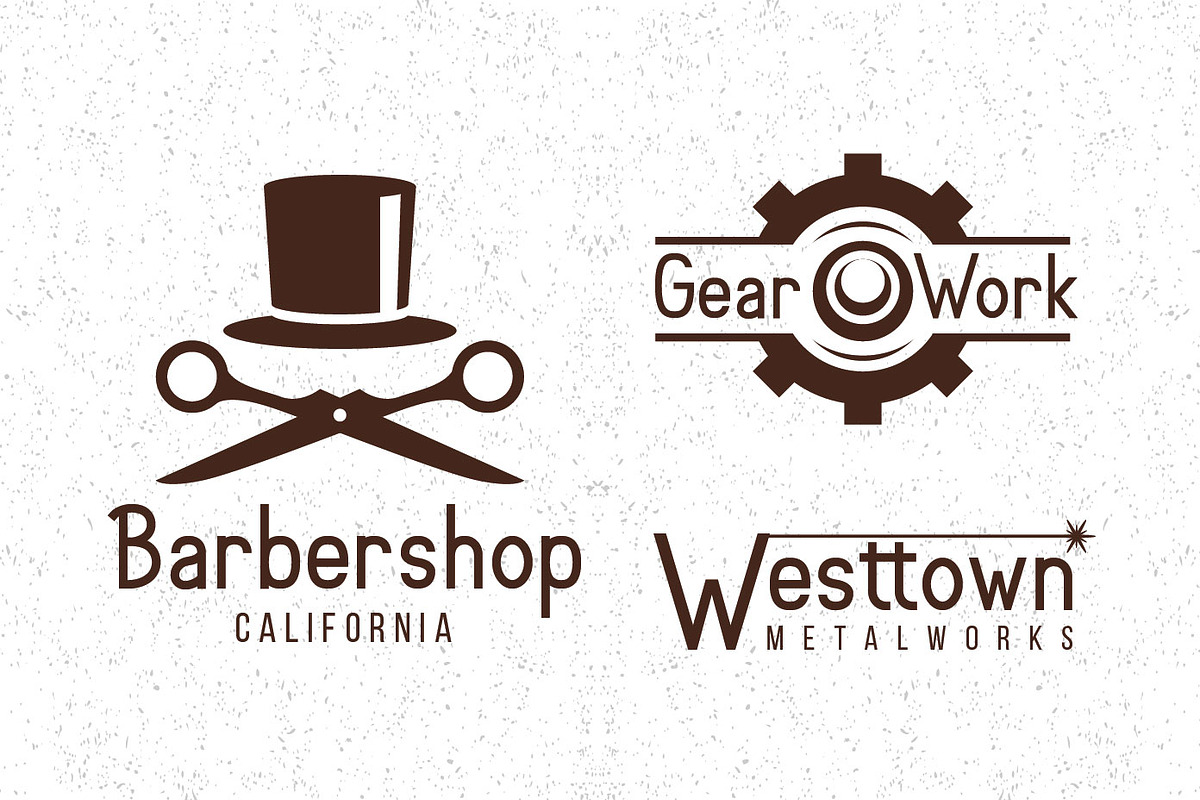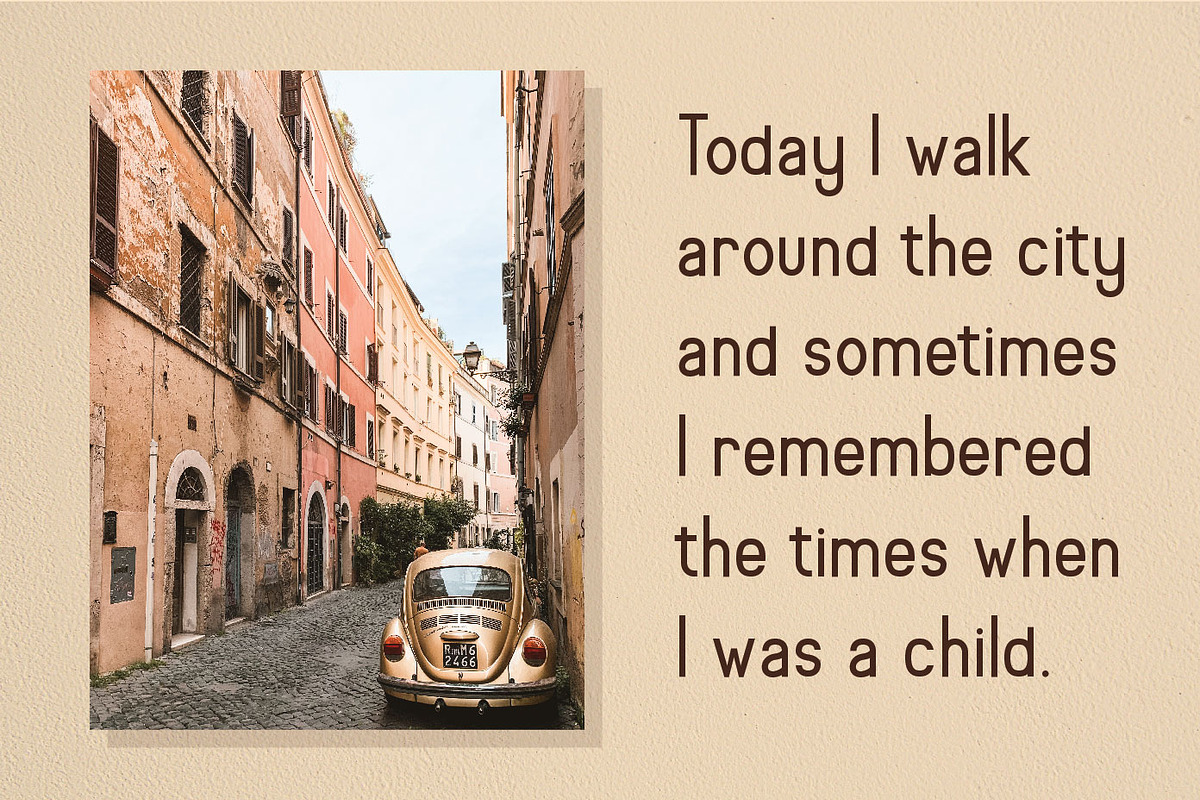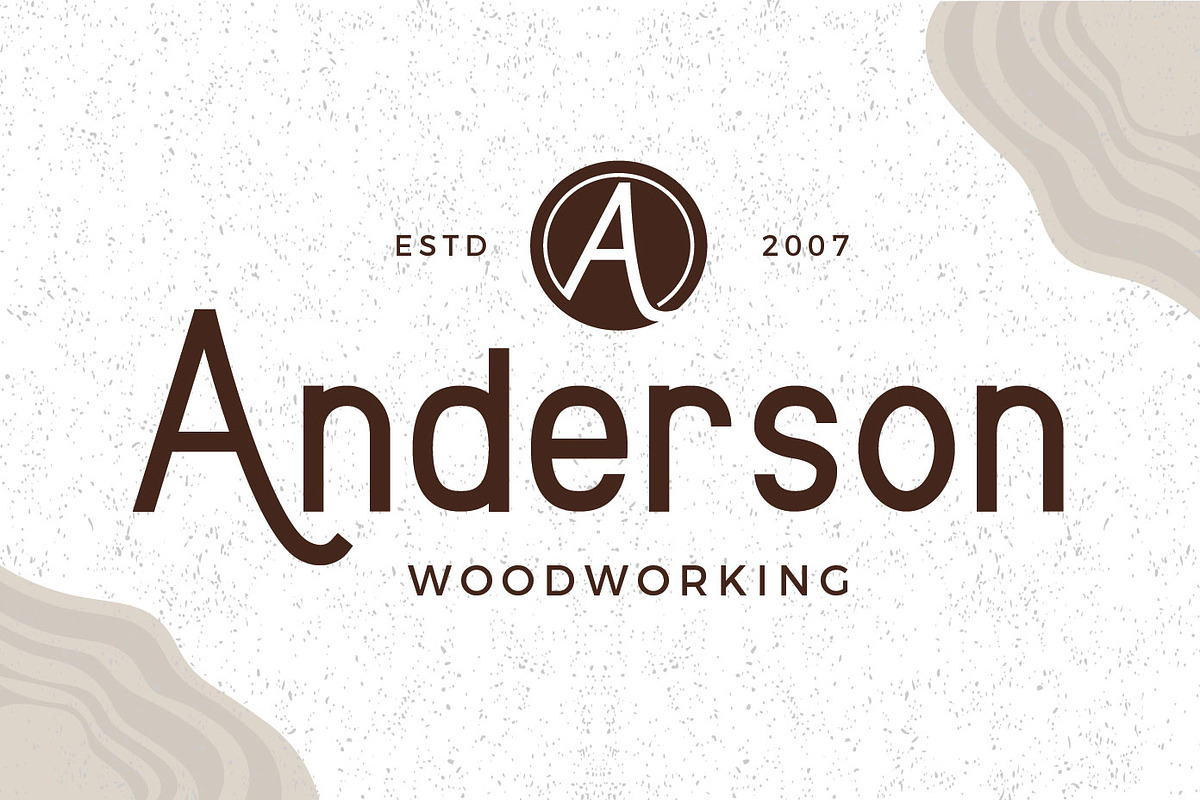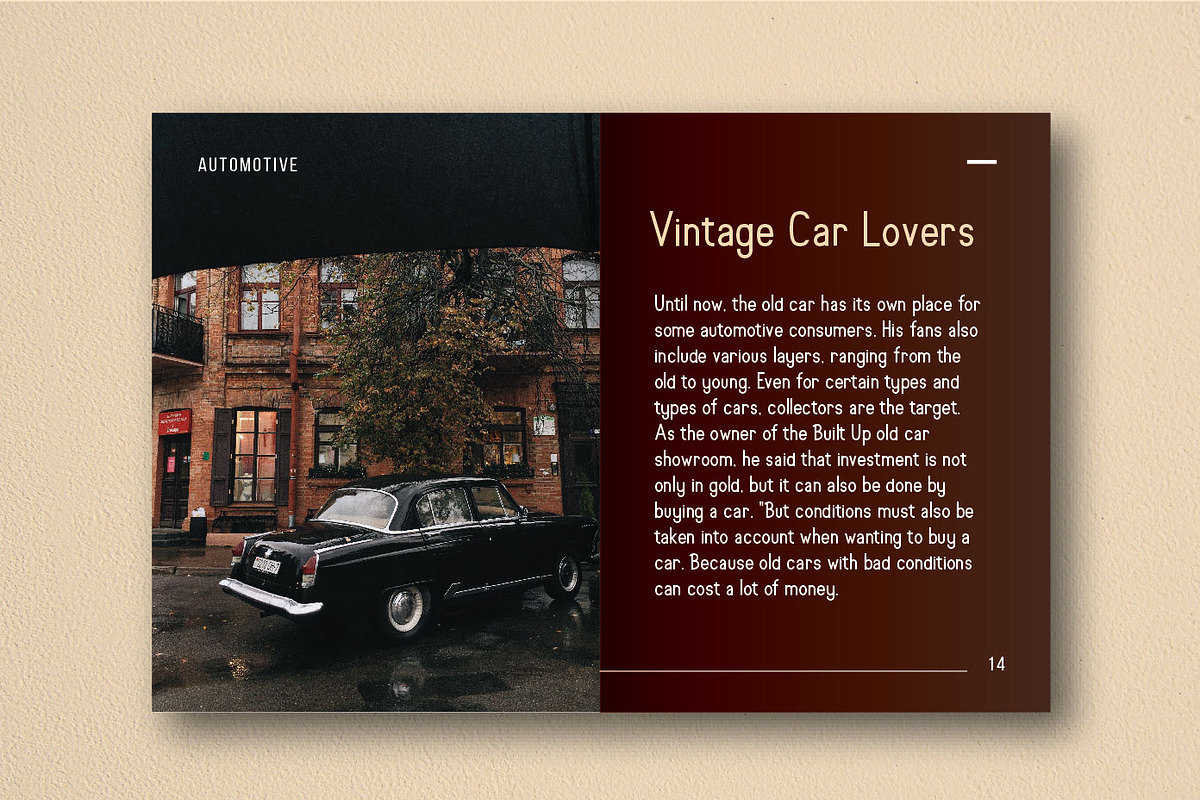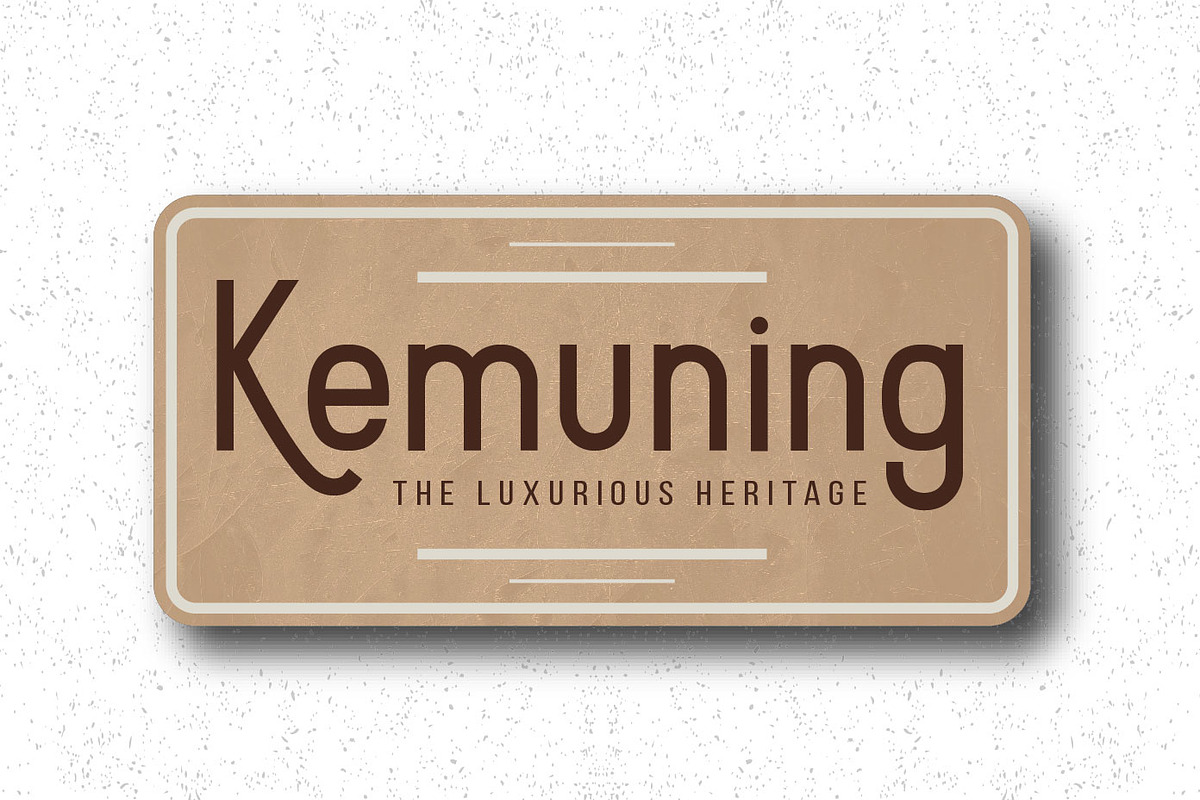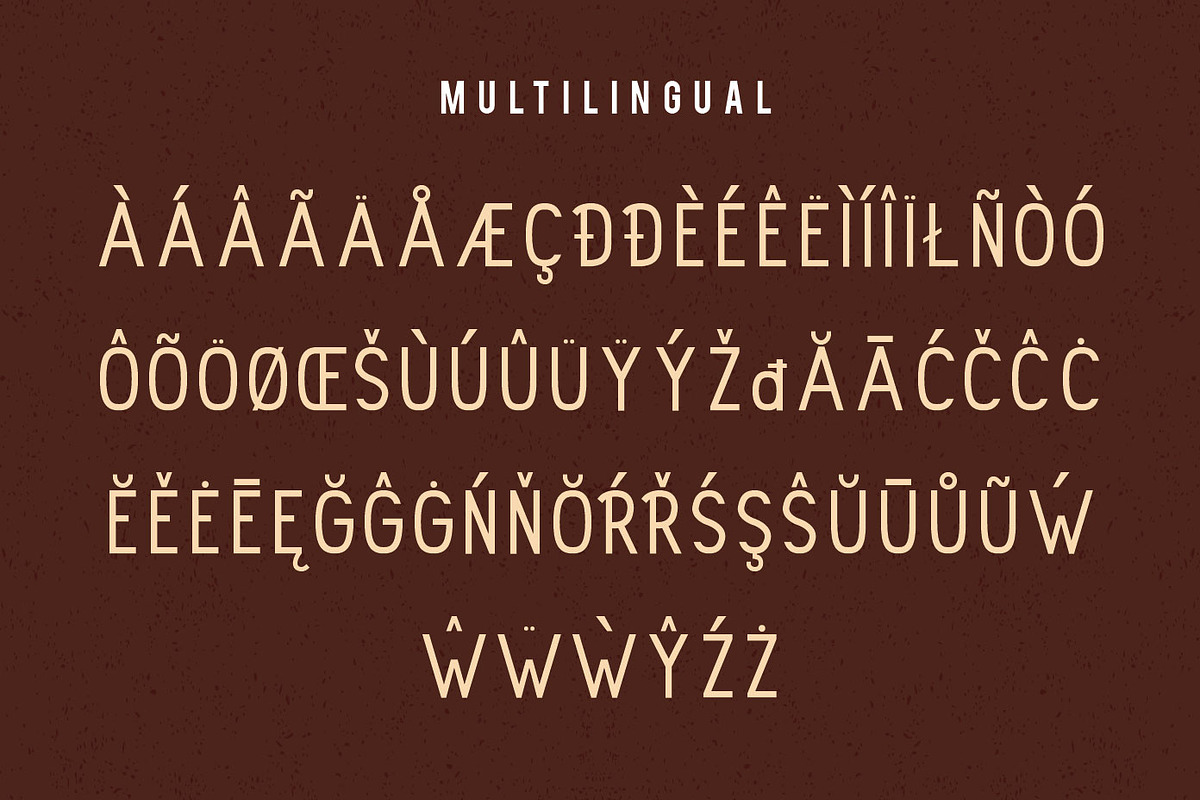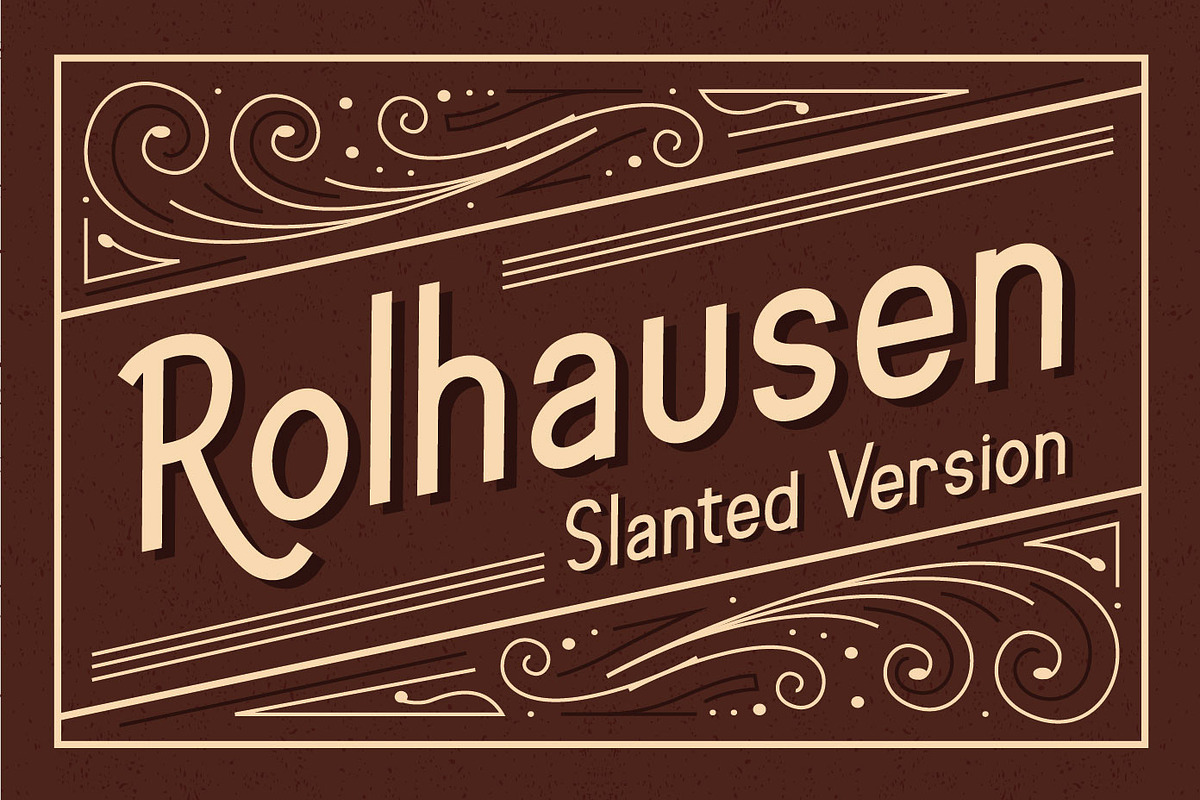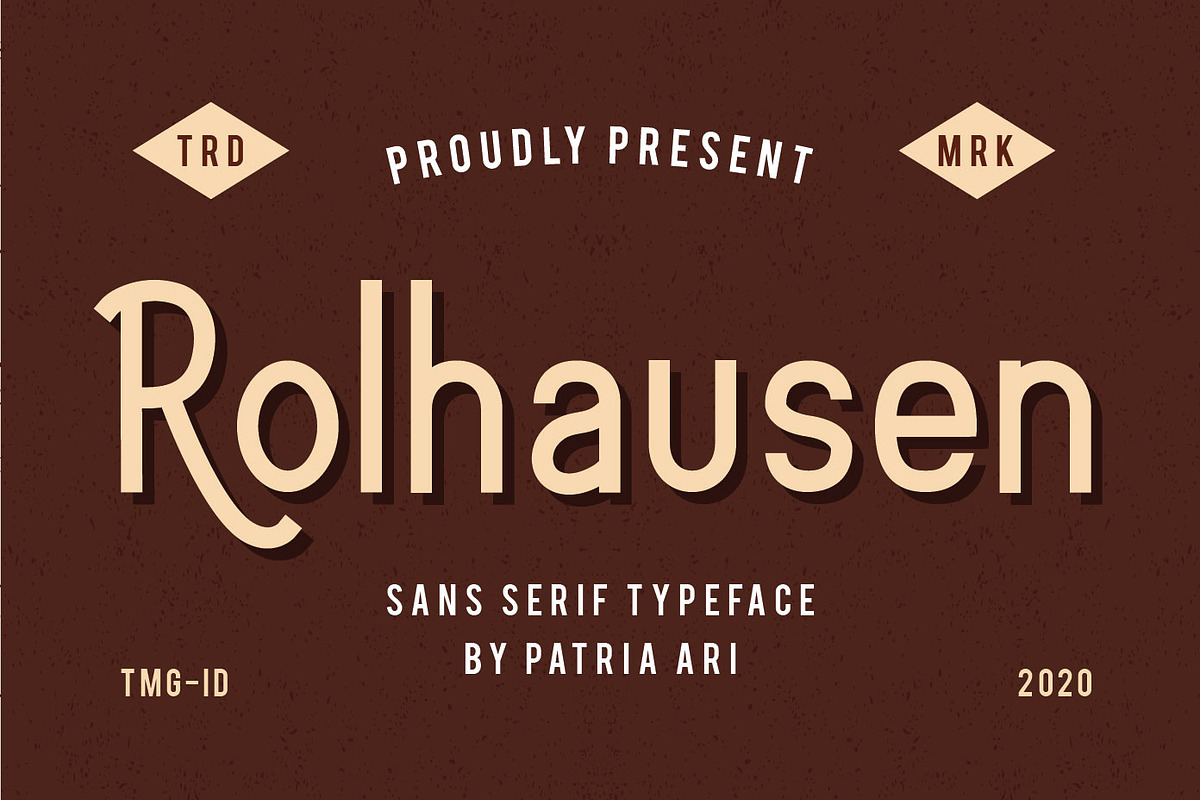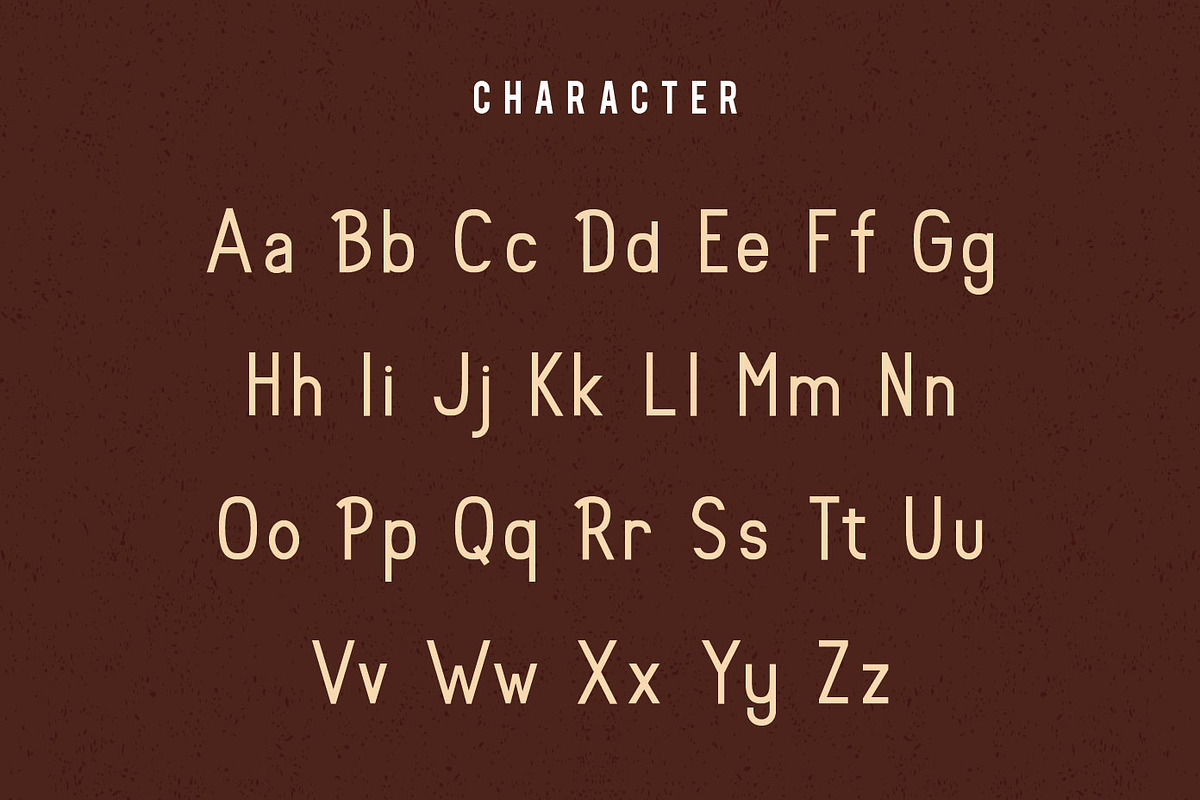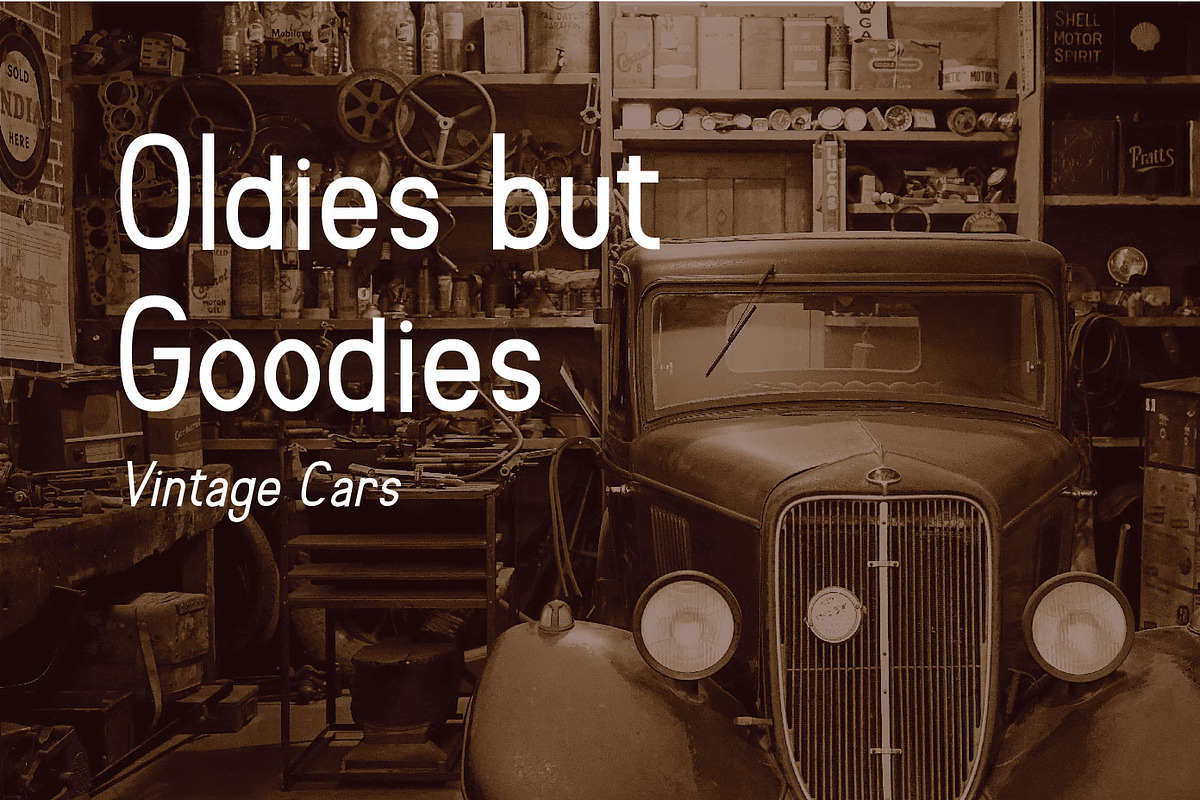
Rolhausen
Rolhausen is a A Sans Serif Typeface which is suitable for you who needs a typeface for headline, logotype, apparel, invitation, branding, packaging, advertising etc.
- Rolhausen Regular
- Rolhausen Slanted